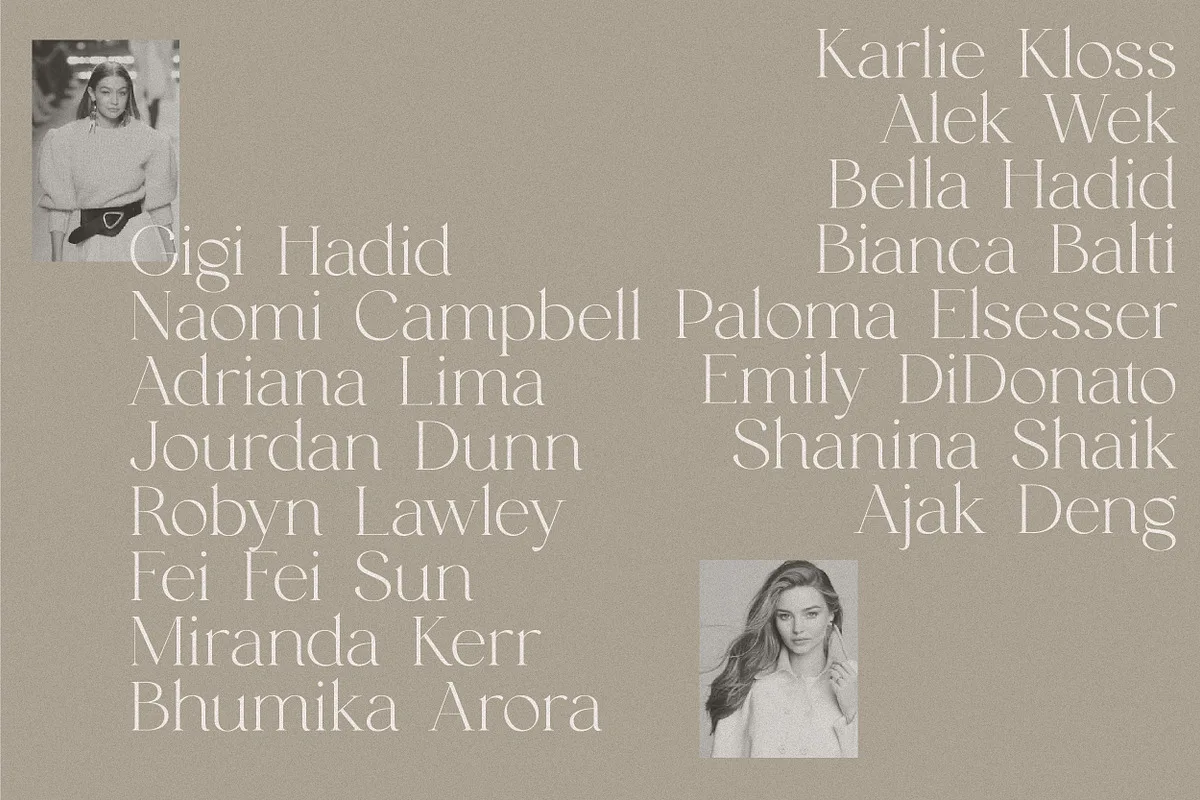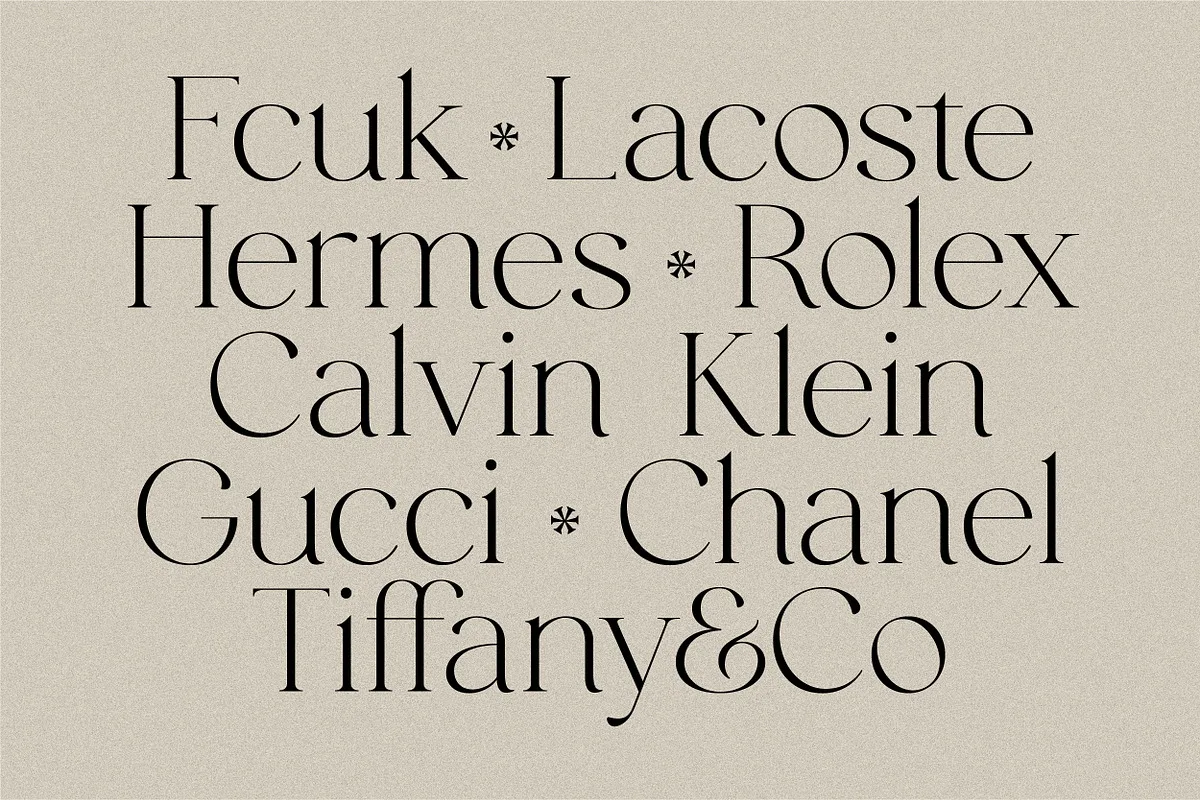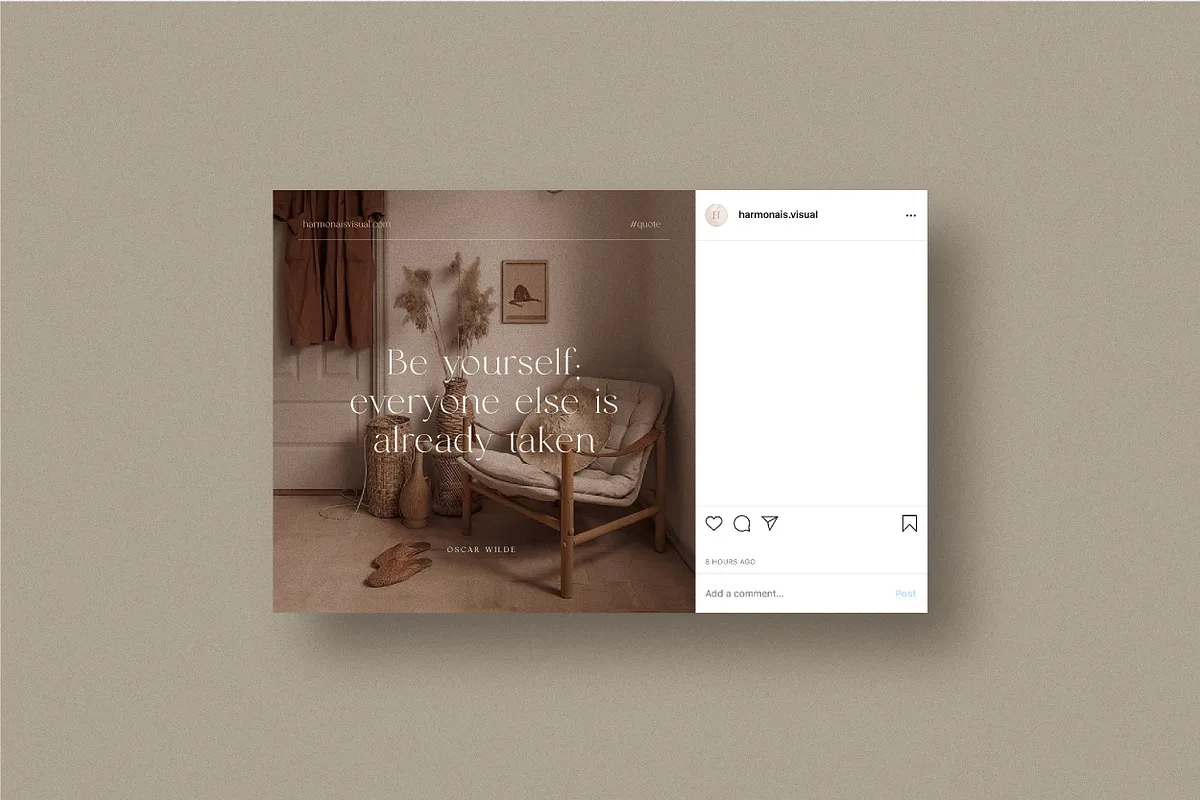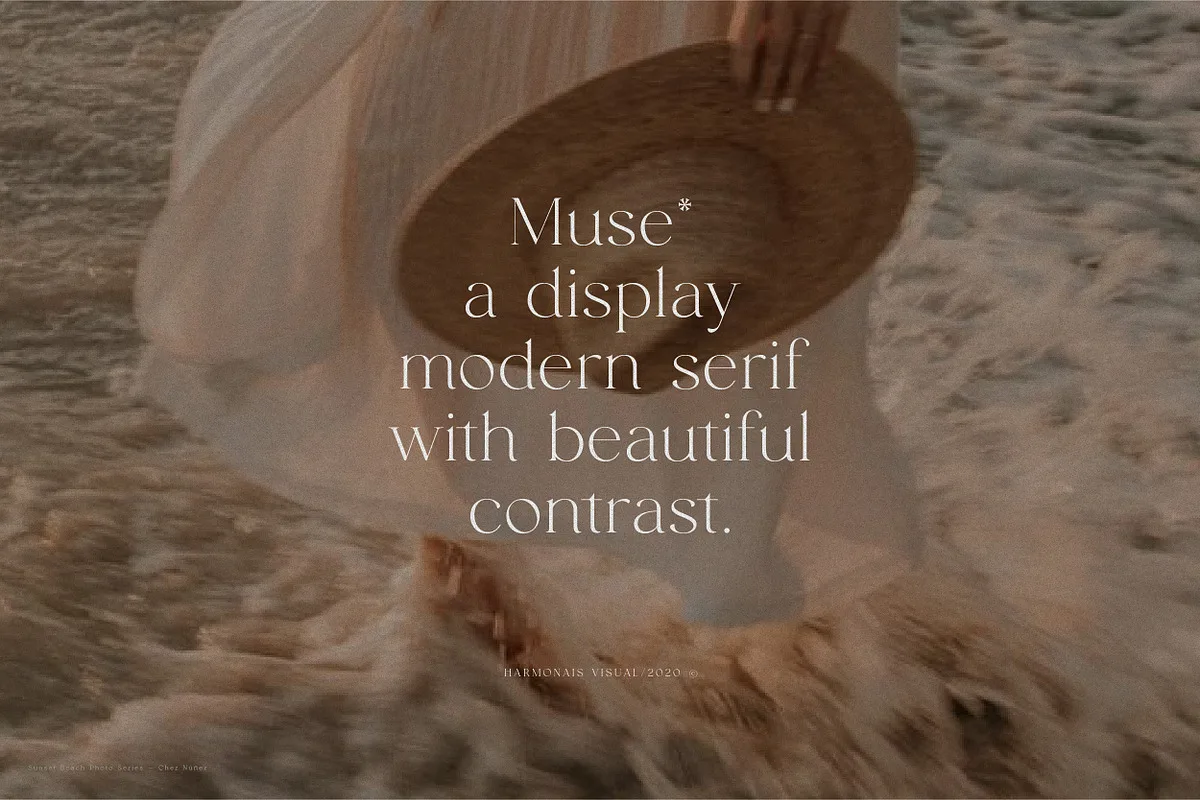
Muse is a chic & elegant display modern serif with beautiful contrast. Specially designed for fashion-themed projects, perfectly suitable for creating elegant, chic, lifestyle designs such as logos, titles, and magazines, and more. Now you have more choices when using Muse for typography thanks to the recently added Muse Italic. The price will stay the same.
Muse Font